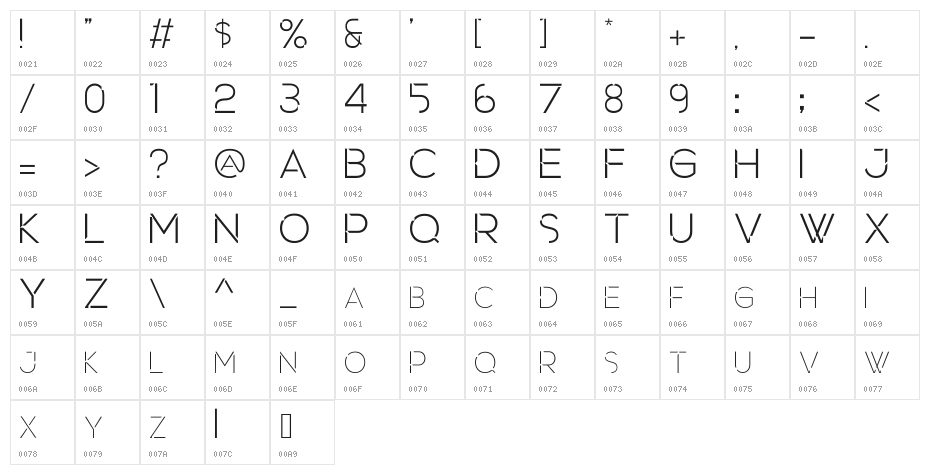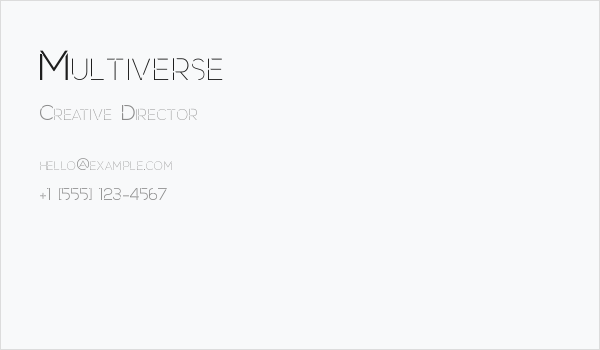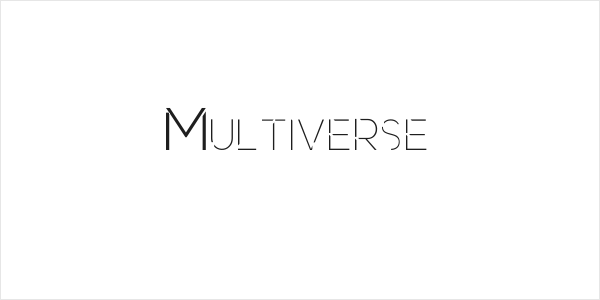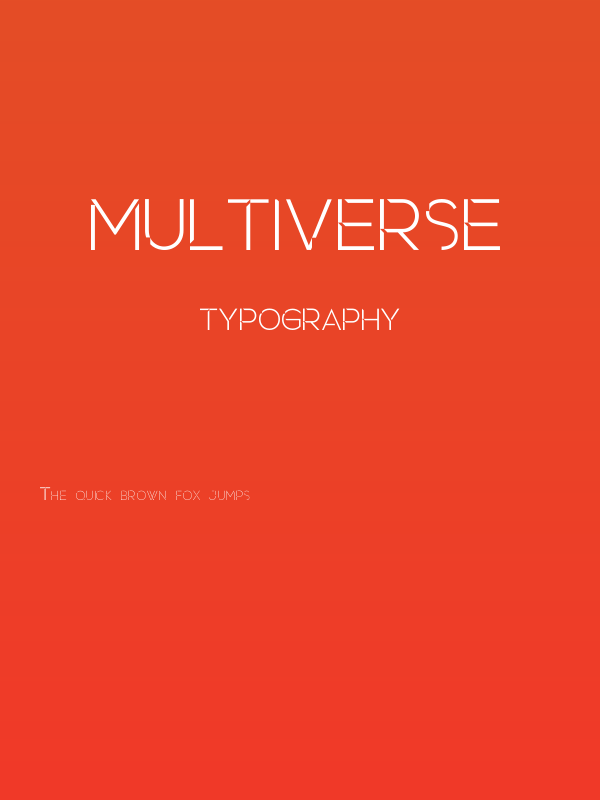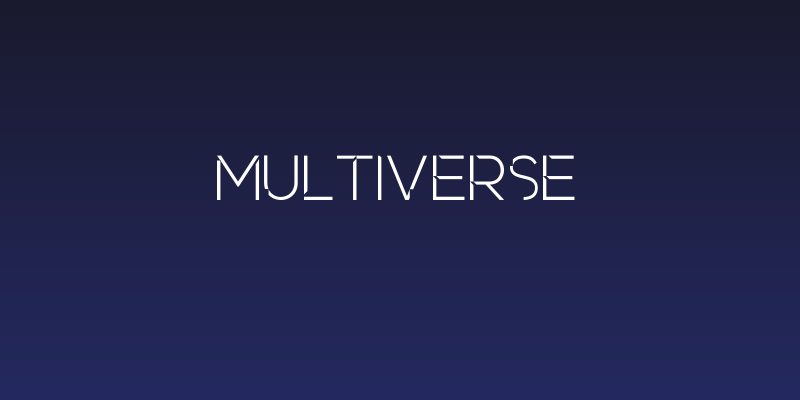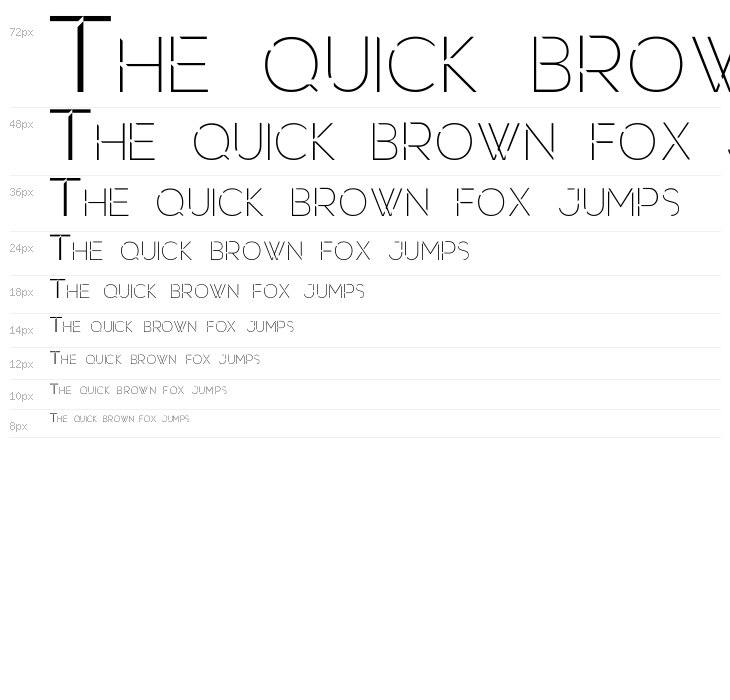
Multiverse Font
Multiverse Description
This font features a modern, geometric design with clean lines and a minimalist aesthetic. The uppercase and lowercase letters are crafted with precision, exhibiting a uniform stroke width that contributes to a sleek and contemporary look. The numerals and special characters maintain this consistency, ensuring a cohesive appearance across all elements. The font's structure is open and airy, with ample spacing that enhances readability while maintaining a stylish edge. Its simplicity and elegance make it versatile for various design applications.
| Use Case | Headlines, Logos, Branding |
| Proposed Projects | Ideal for branding, advertising, and editorial design projects that require a modern and sophisticated touch. |